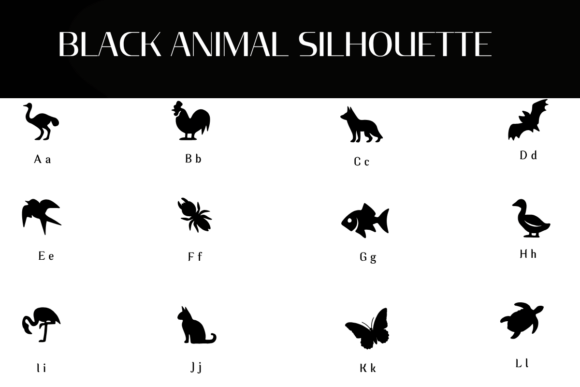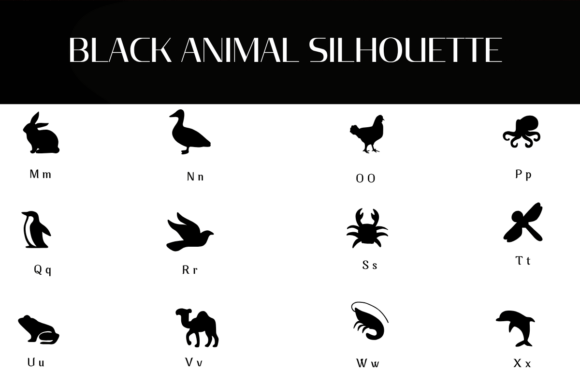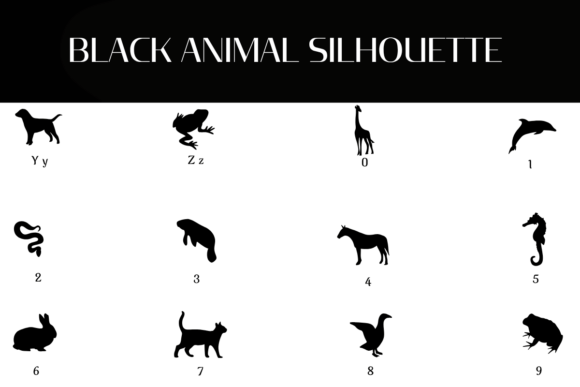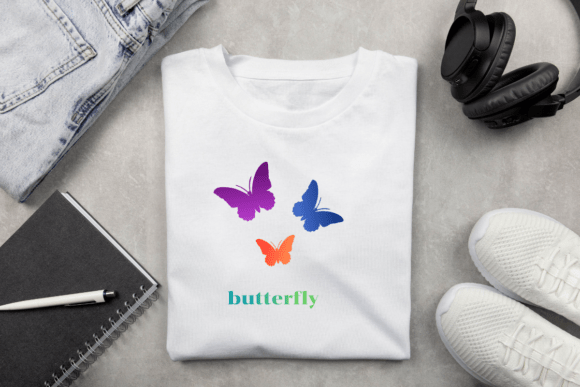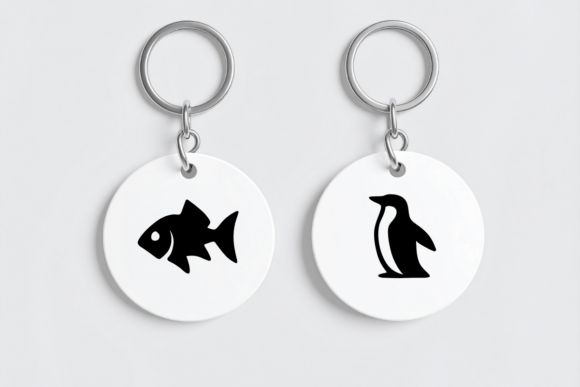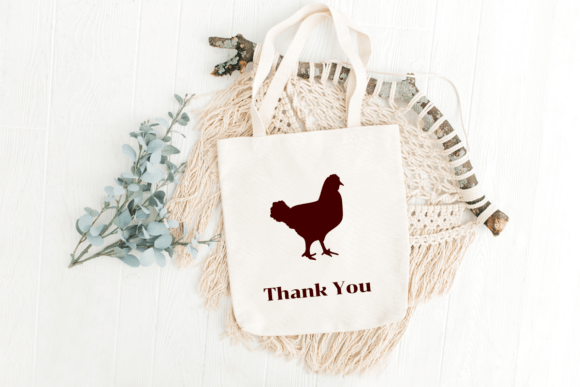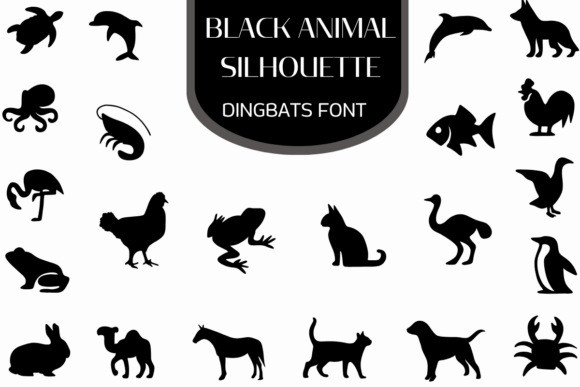
Bringing the Wild to Your Designs: A Deep Dive into Black Animal Silhouette Font
I’ll never forget the time I was working on a nature-themed poster for a local pet store. I had all my ideas sketched out, but I just couldn’t find the right font to bring it all together. The design needed something that would instantly convey the playful, outdoorsy vibe I was going for. That’s when I stumbled upon the Black Animal Silhouette font. It was like a breath of fresh air – a collection of beautifully crafted animal icons that seemed tailor-made for my project.
The Black Animal Silhouette Advantage
This comprehensive dingbats font is a game-changer for designers, crafters, and creative hobbyists looking to add a touch of the natural world to their digital layouts. With a vast array of professionally crafted animal icons, ranging from aquatic life like dolphins and octopuses to terrestrial favorites like cats, dogs, and horses, you’ll find the perfect silhouette to suit your needs.
• ✨ Clean and recognizable geometry: Each silhouette is rendered with precision, making it easy to identify and use in various designs.
• ✅ Vast character set: With a wide range of animal icons, you’ll find the perfect fit for your project, whether it’s for educational infographics, environmental branding, or playful web UI design.
• 🌟 Instant visual communication: The silhouettes are designed to convey a message quickly, making it an excellent choice for designers who need to create engaging visuals fast.
While the Black Animal Silhouette font is an excellent addition to any design toolkit, there are a few things to keep in mind:
• ⚠️ Some silhouettes may require adjustments: Depending on the design, you might need to tweak the size or position of certain silhouettes to get the desired look.
• 🤔 Limited color options: As a silhouette font, it’s designed to work best in a single color. If you need a multi-colored design, you might need to get creative with editing.
The Story Behind Black Animal Silhouette
The Black Animal Silhouette font was created by a team of designers who wanted to bring the beauty of the natural world to digital designs. Inspired by the simplicity and elegance of animal silhouettes, they crafted a comprehensive font that would make it easy for designers to add a touch of wildlife to their work. Whether it’s for educational materials, branding, or personal projects, Black Animal Silhouette is the perfect tool.